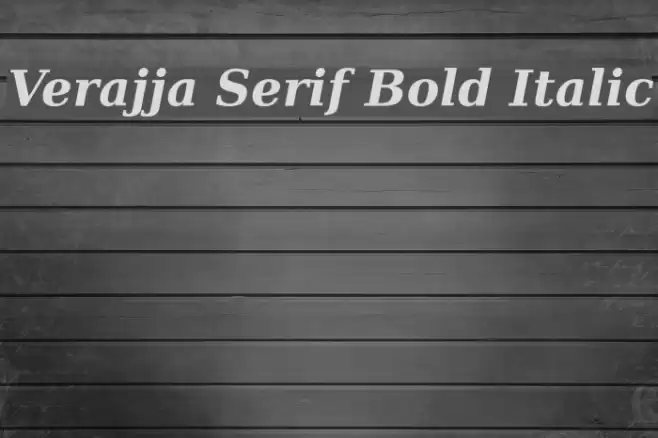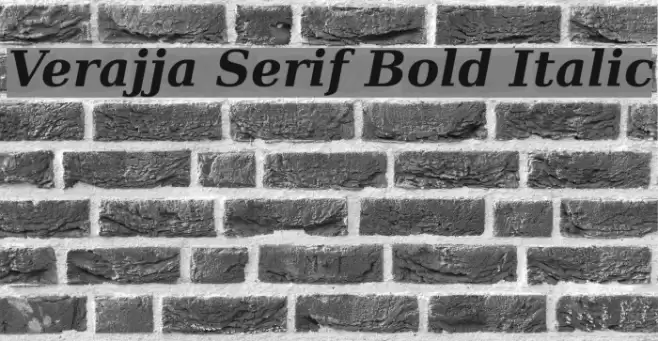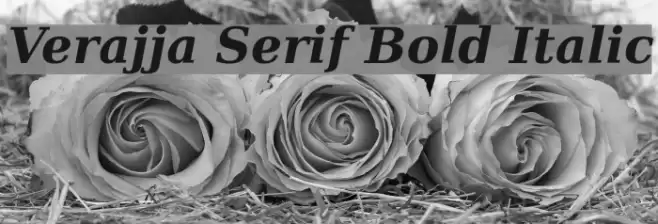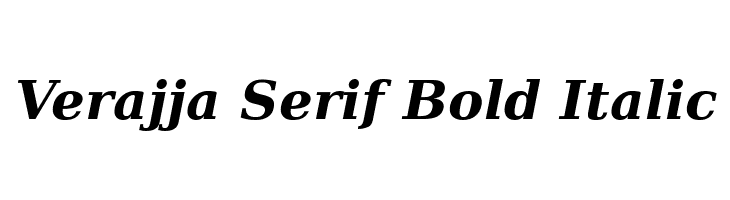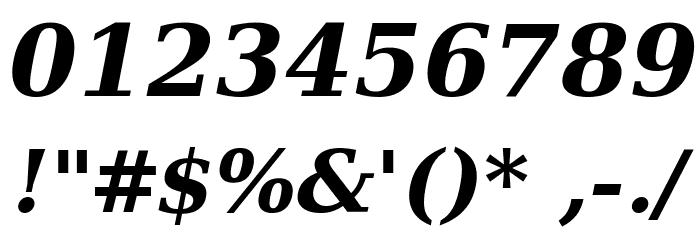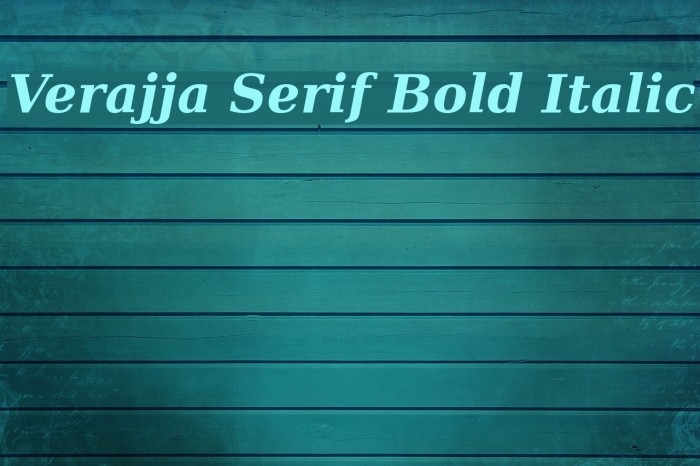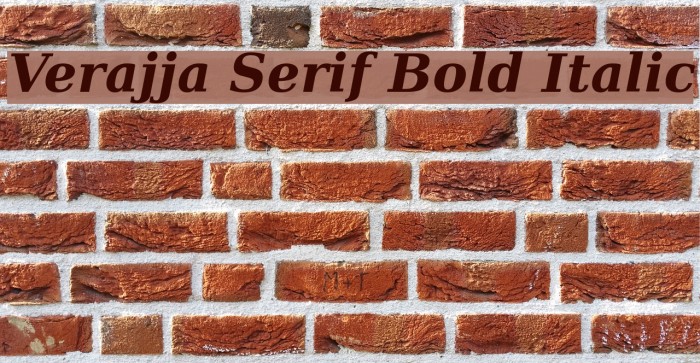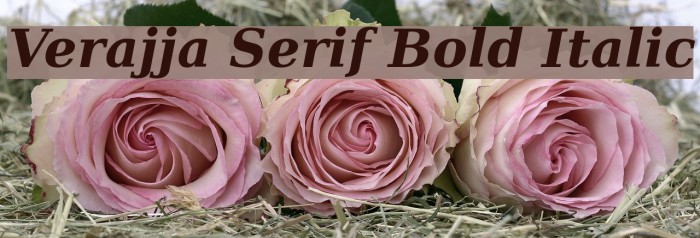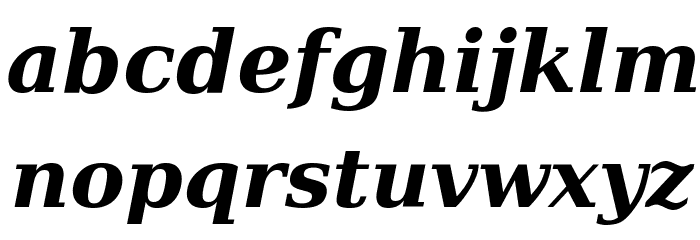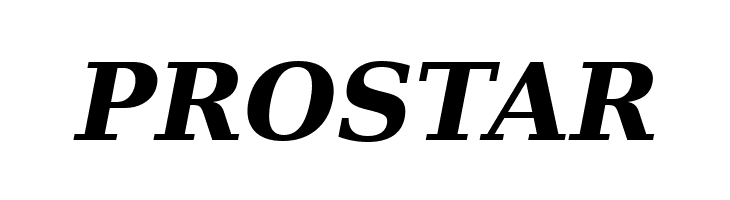
Verajja Serif Bold Italic Font
Verajja Serif Bold Italic Description
This font exhibits a classic serif style with a bold and italicized appearance, giving it a strong and elegant presence. The serifs are pronounced, adding a touch of sophistication and tradition. The italic slant enhances the dynamic and fluid nature of the typeface, making it suitable for impactful and stylish text. The bold weight ensures that the characters stand out, providing a sense of authority and emphasis. The overall design is balanced, with consistent stroke widths and well-defined curves, making it versatile for various design applications.
A bold, italic serif font with a classic and elegant style from Uncategorized fonts.
- Proposed Projects: Ideal for book covers, formal invitations, branding, and editorial design.
- Overall Style: Classic
- Use Case: Headlines, Logos, Editorial design